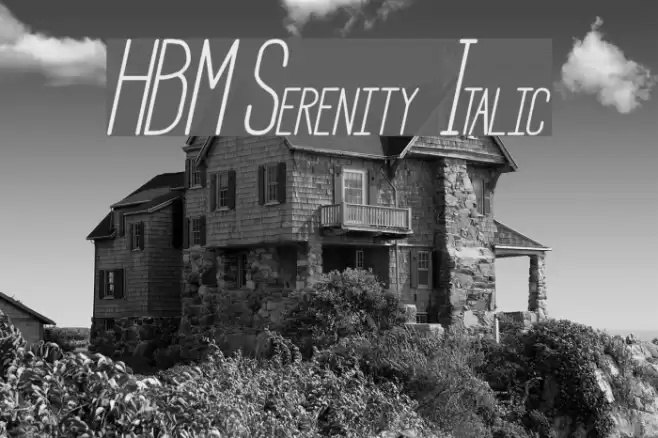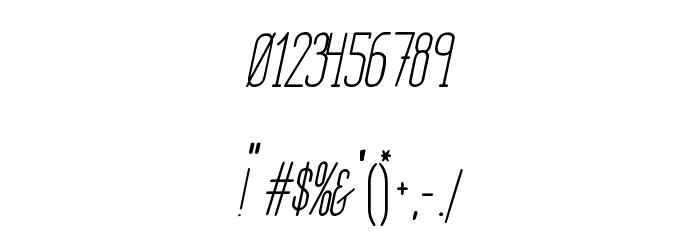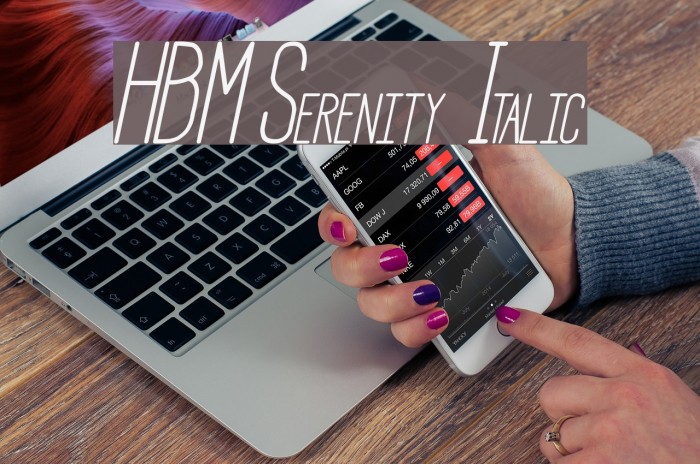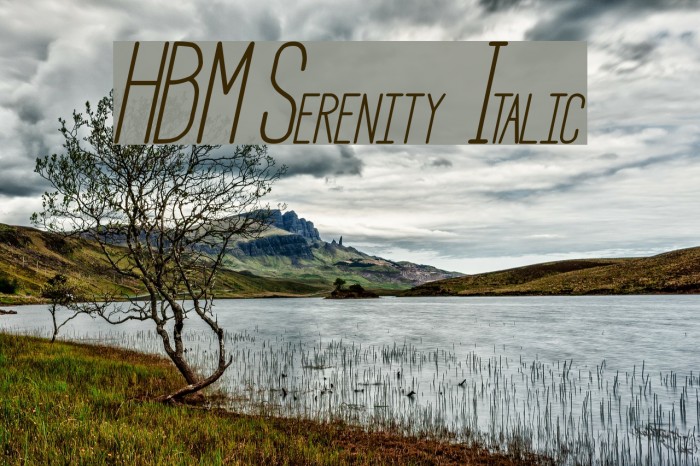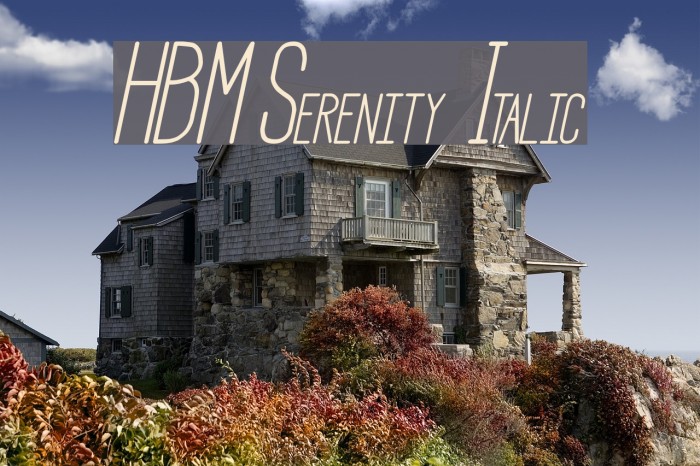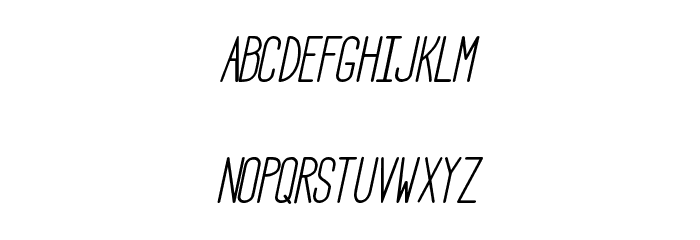
HBM Serenity Italic Font
HBM Serenity Italic Description
This font features a sleek, elongated design with a distinct italic slant, giving it a dynamic and modern feel. The characters are narrow and tall, with a consistent stroke width that maintains a clean and streamlined appearance. The uppercase and lowercase letters are designed with a slight forward tilt, enhancing the sense of motion and elegance. Numbers and special characters follow the same stylistic cues, ensuring uniformity across all glyphs. The overall aesthetic is contemporary and stylish, making it suitable for projects that require a touch of sophistication and flair.
A sleek, italic font with elongated, narrow characters and a modern aesthetic from Uncategorized fonts.
- Proposed Projects: Ideal for fashion branding, modern editorial layouts, and dynamic advertising campaigns.
- Use Case: Headlines, Logos, Branding